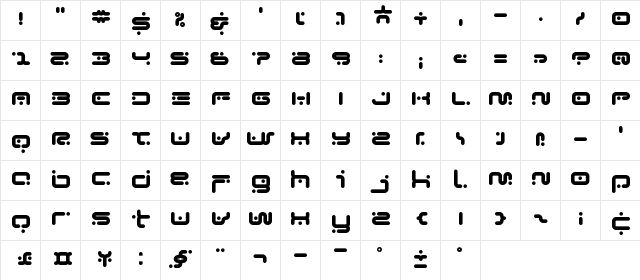
Gymnast Regular
| Designer | Jγon Garnica |
Design Context for Gymnast Typeface
Gymnast is a composed and adaptable typeface that performs quietly and consistently across a wide range of design contexts.